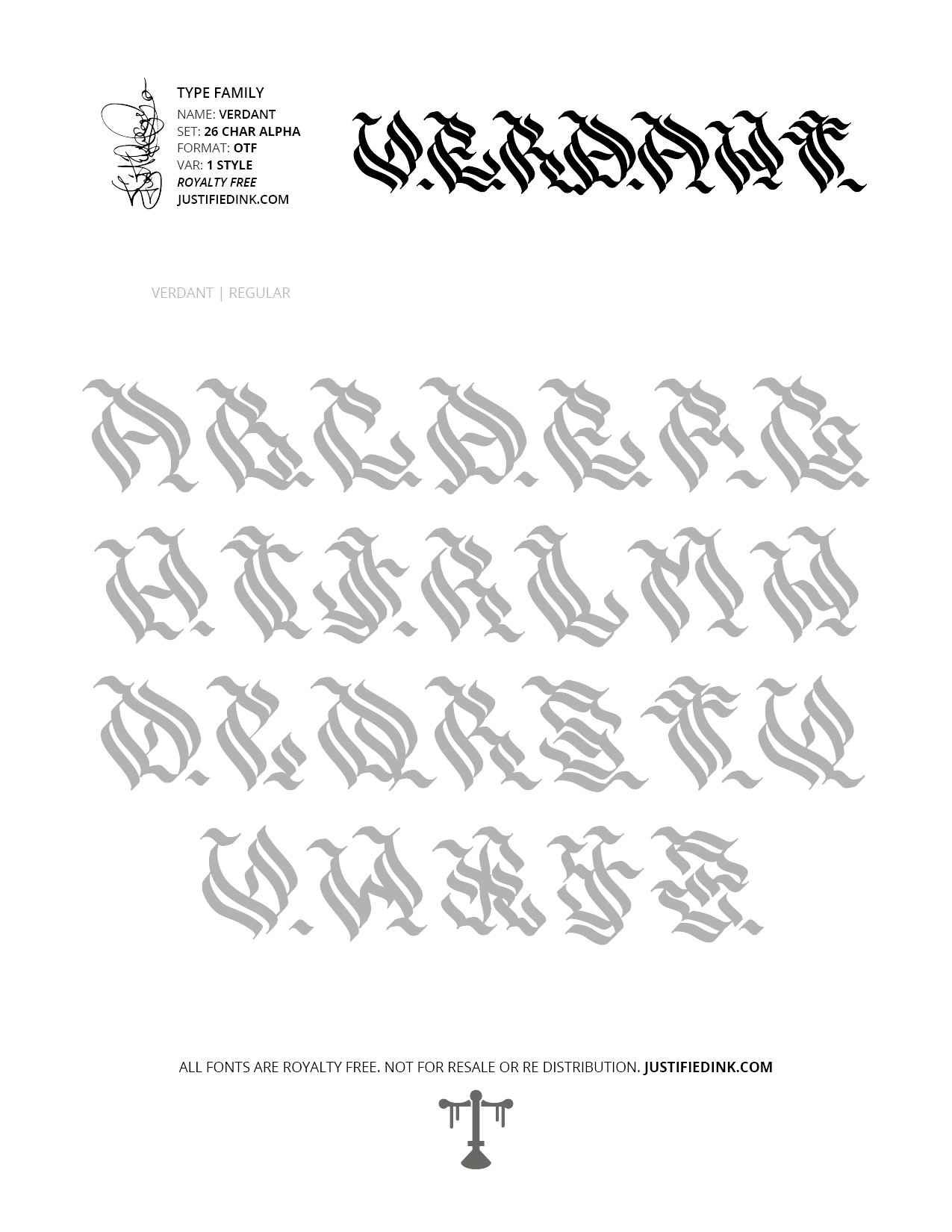
Verdant (1 style) - Custom Font by Justified Ink
NAME: Verdant
Verdant is a blackletter style blooming with rich letterforms and lush strokes.
This font is part of the collection by Justified Ink, called Blackletter III. After 15+ years creating, I began to focus on building personal libraries of my work. Blackletter III is yet another amazing collection of 30 handmade fonts. Building off of the work done to create Blackletter II, this collection is specialized where it was created digitally. This features many classic styles such as gothic, fraktur, beneventan, and uncial. Additionally, this collection contains several other styles drawn from graffiti, hiphop, and indie type styles. It comes in a full set of 26 char alpha. Each font family has variations in styles and/or non-alpha chars.